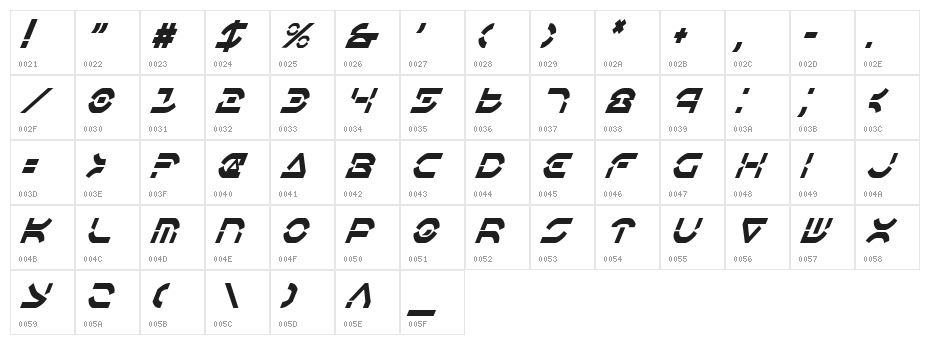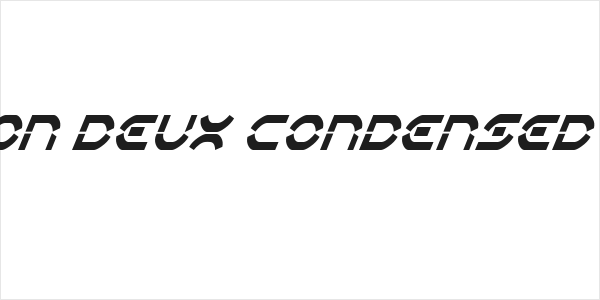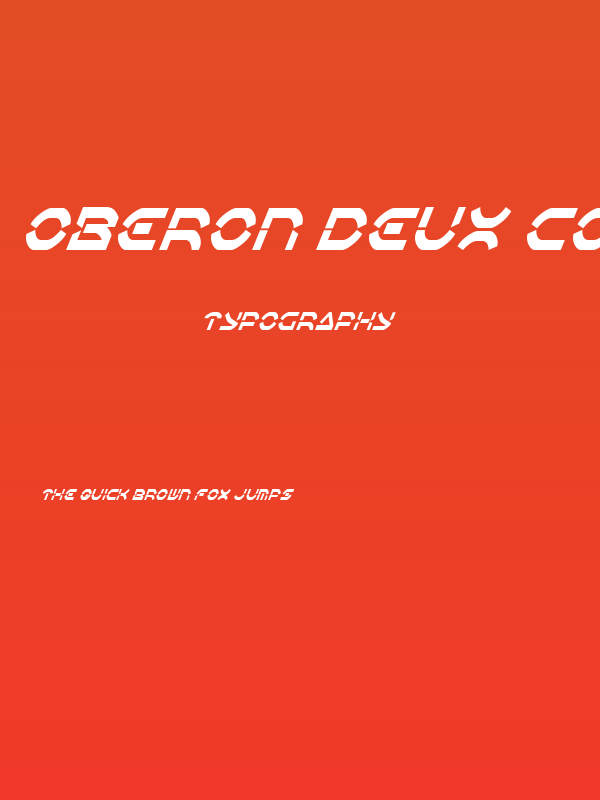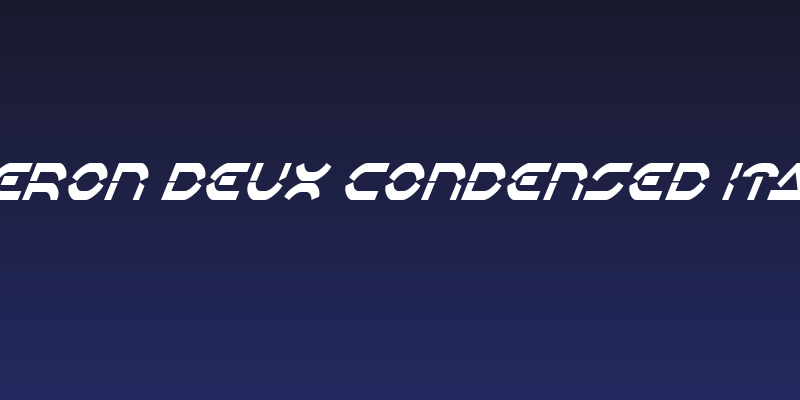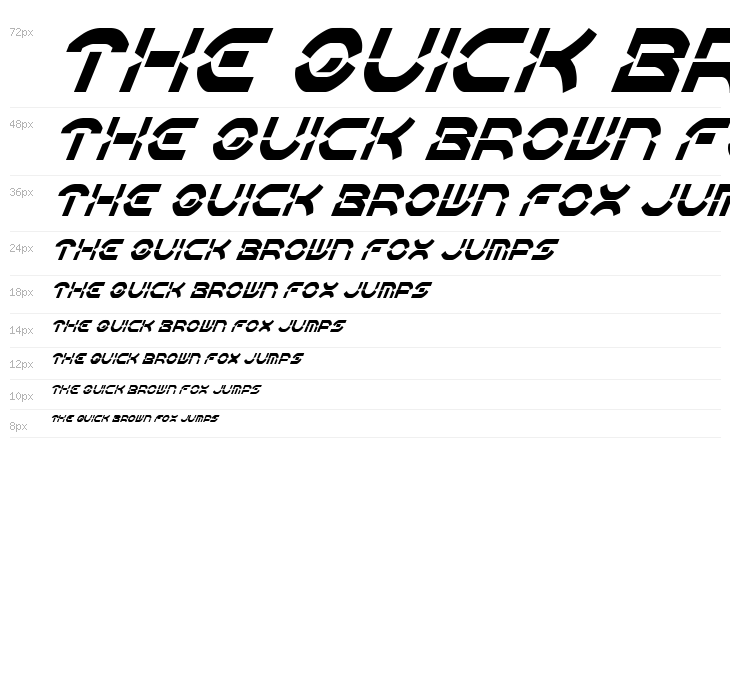
Oberon Deux Condensed Italic Font
Oberon Deux Condensed Italic Description
This font features a bold, futuristic design with a condensed and italicized style. The characters are constructed with sharp angles and geometric shapes, giving it a dynamic and modern appearance. The strokes are thick, providing a strong visual impact, while the italic slant adds a sense of motion and speed. The condensed width allows for efficient use of space, making it suitable for headlines or titles where space is limited. The overall aesthetic is sleek and contemporary, ideal for projects that require a cutting-edge look.
| Proposed Projects | Ideal for sci-fi themed designs, technology branding, video game titles, and modern advertising. |